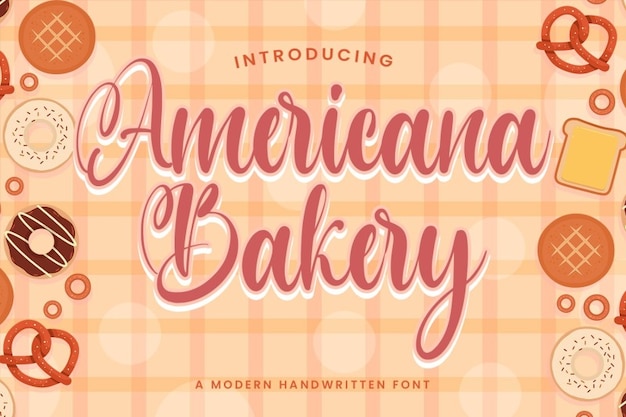
Americana Bakery
Americana Bakery Font
The Americana Bakery font is the perfect example of a beautiful handwritten typeface. Its stylish look will definitely make your project stand out! You can use it for many purposes and projects, especially for titles, logos and signatures. Download it now and start designing!